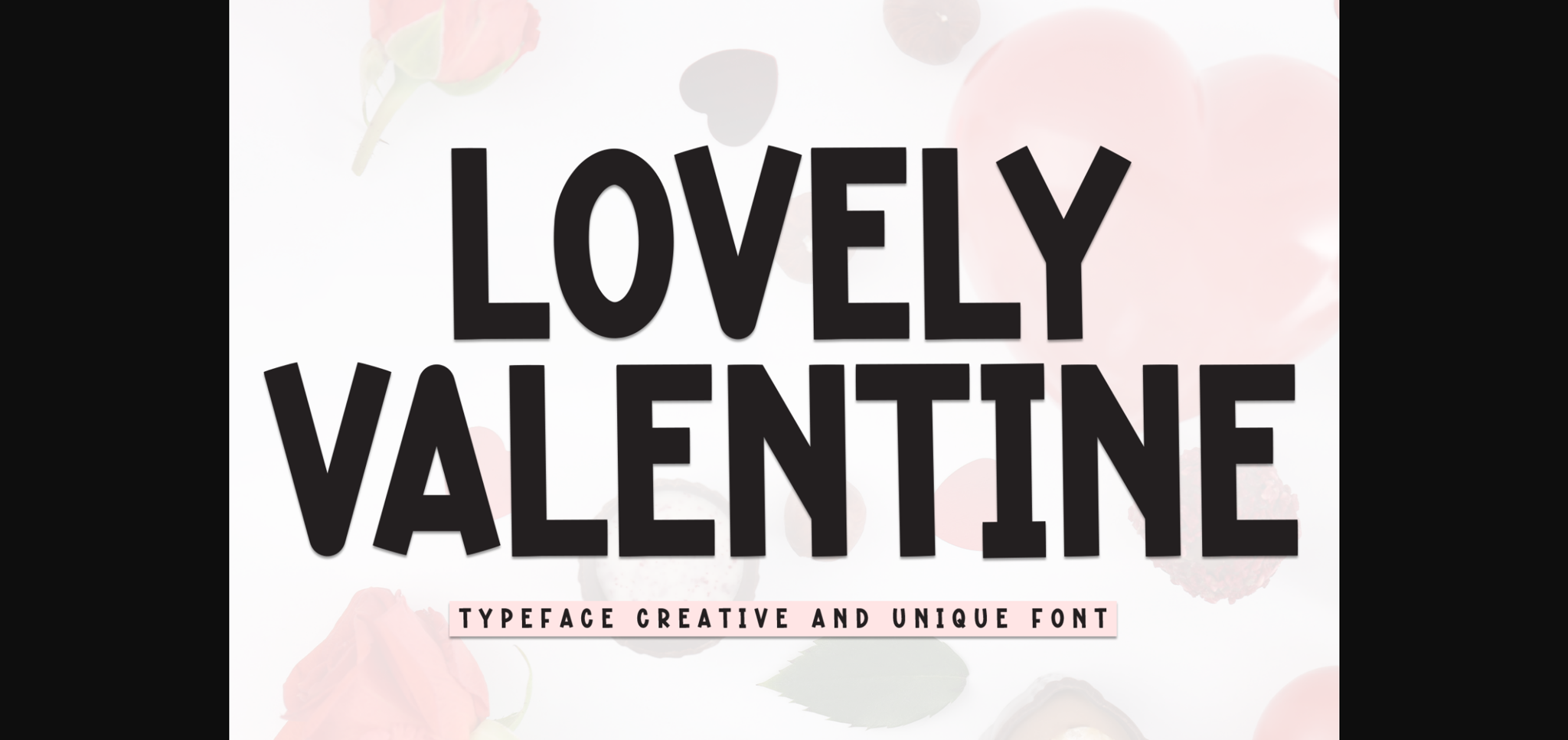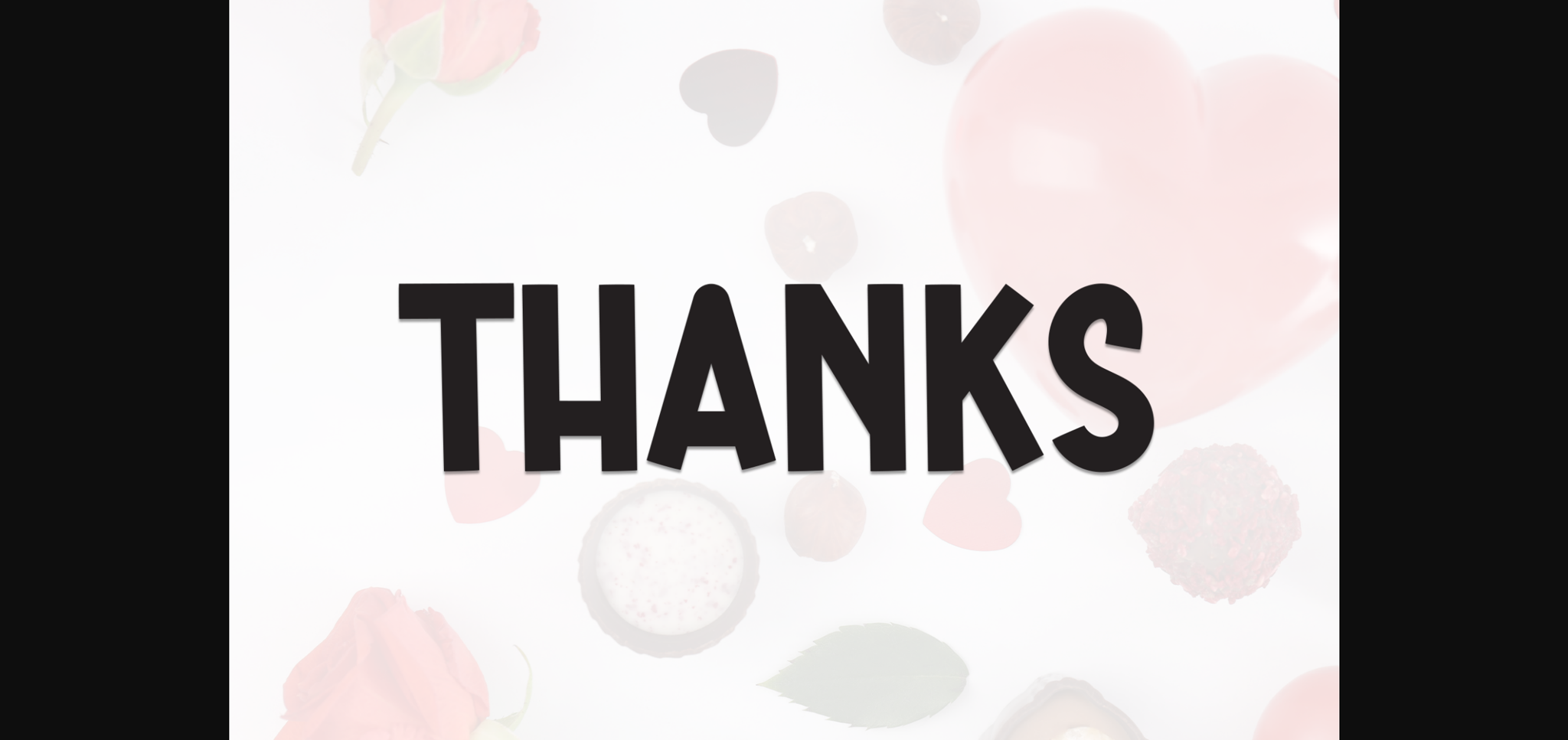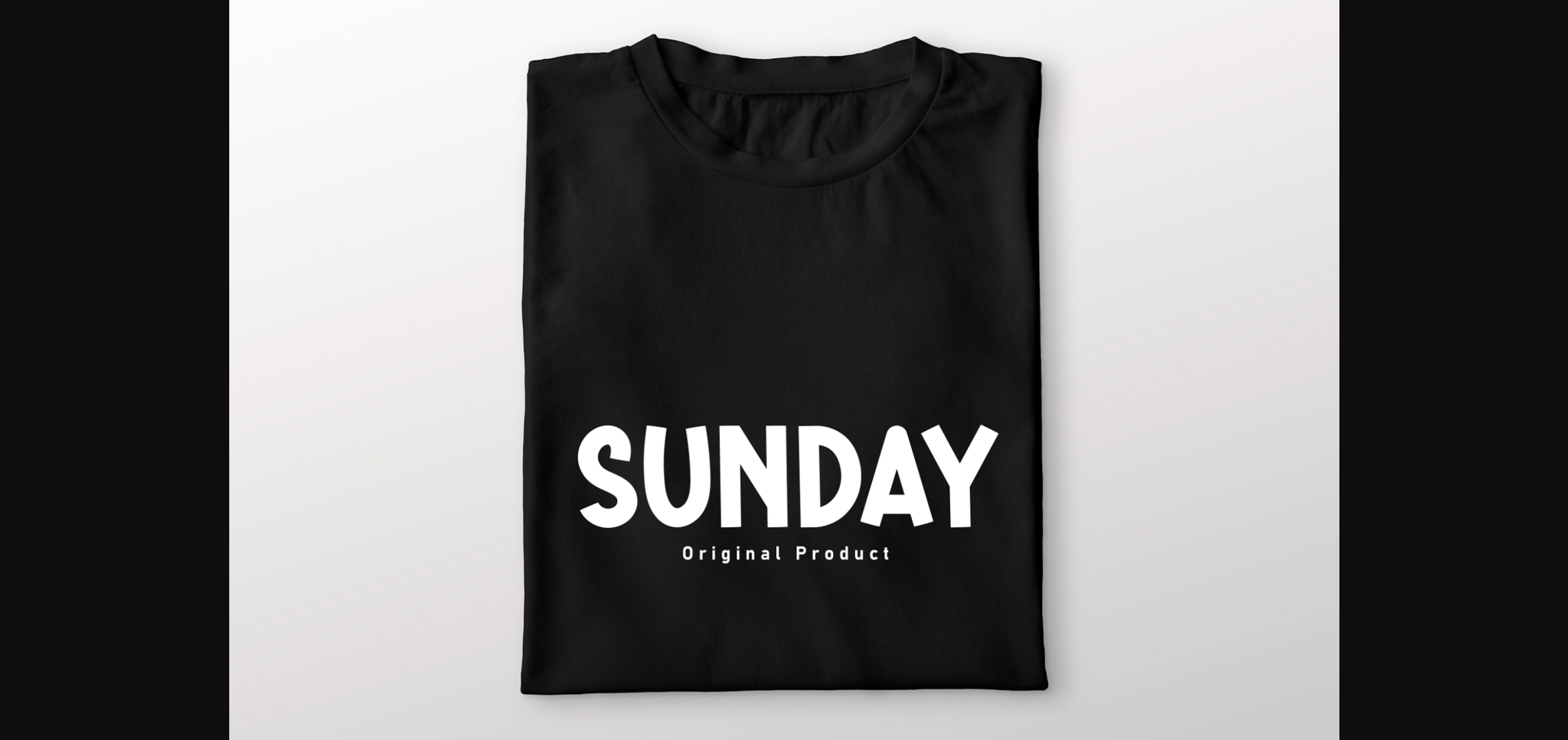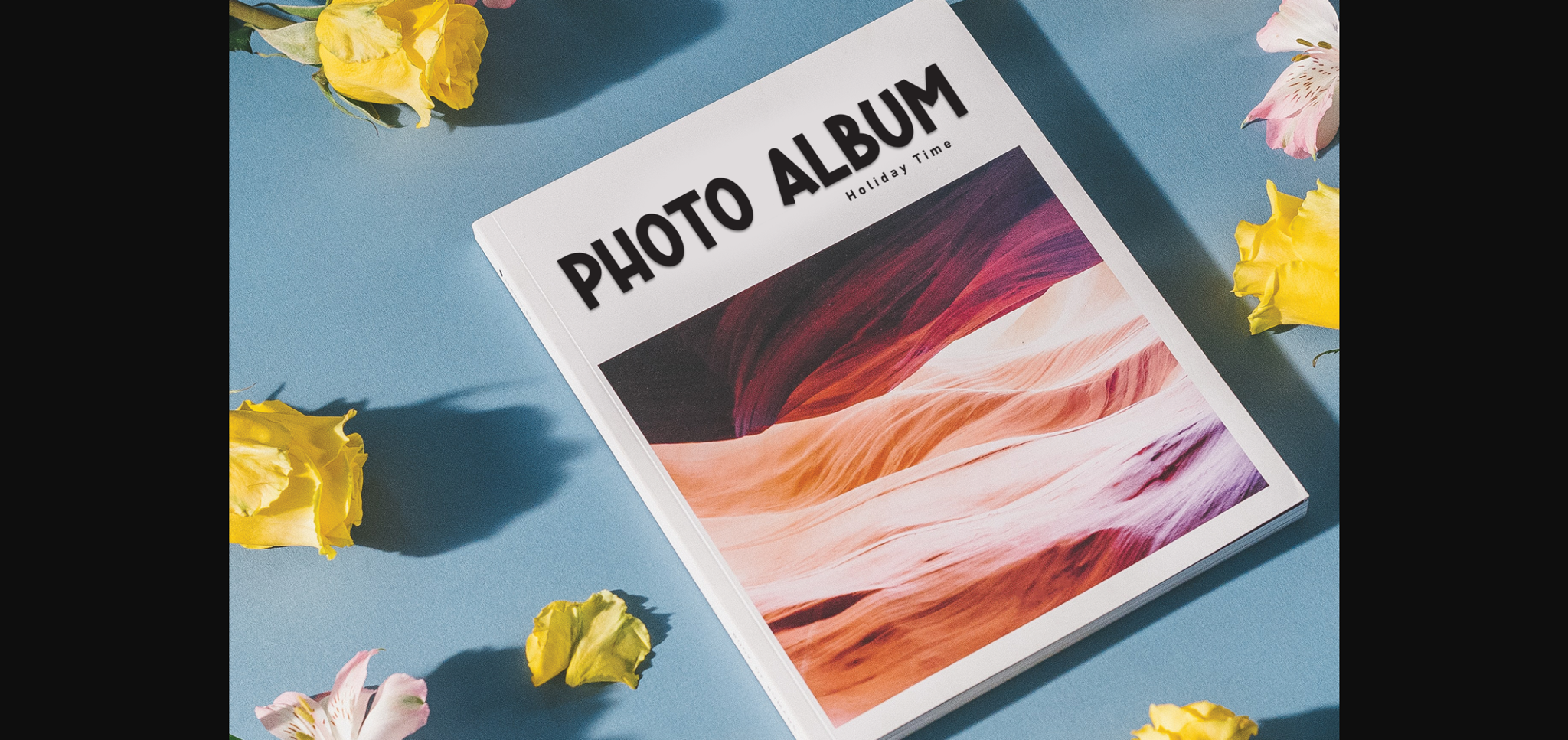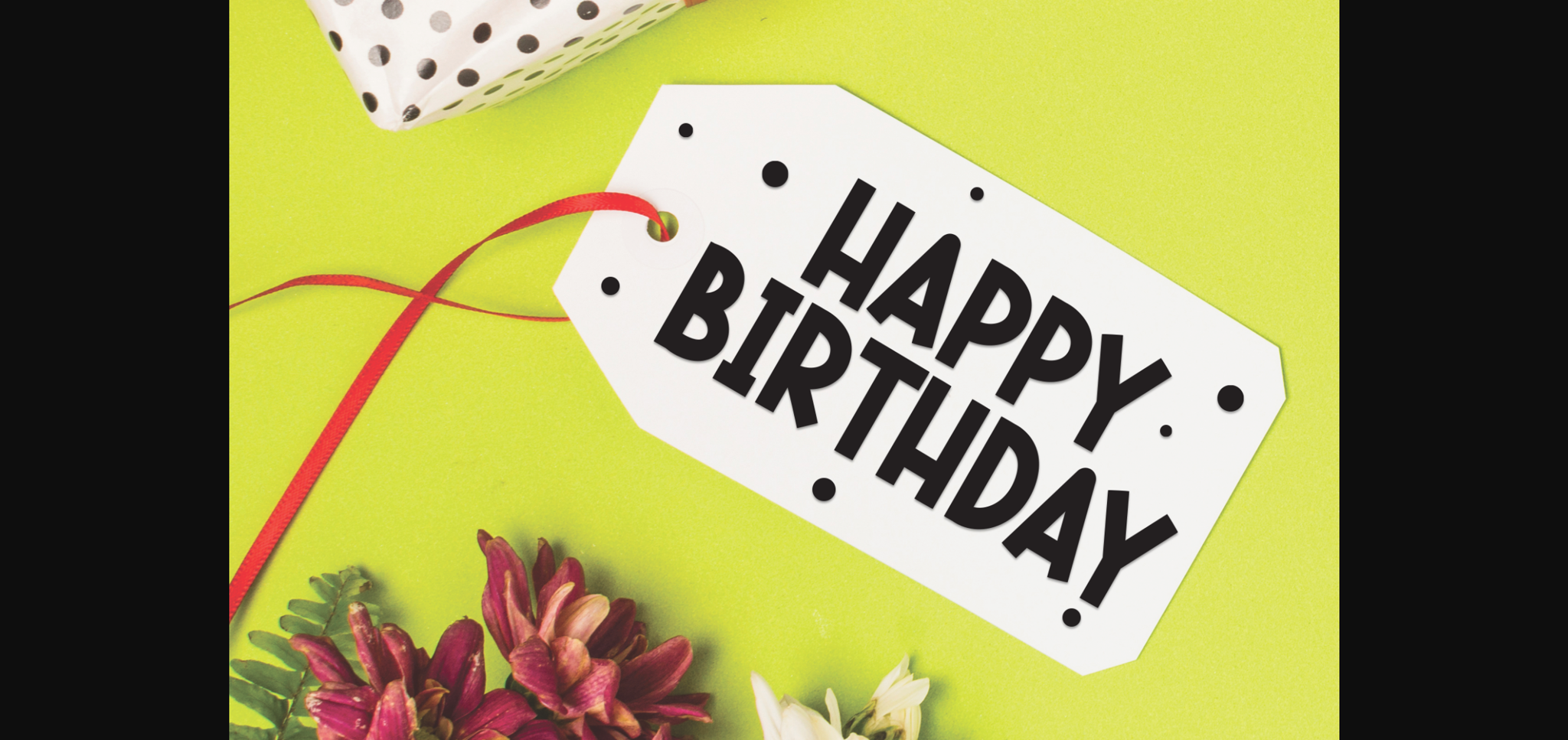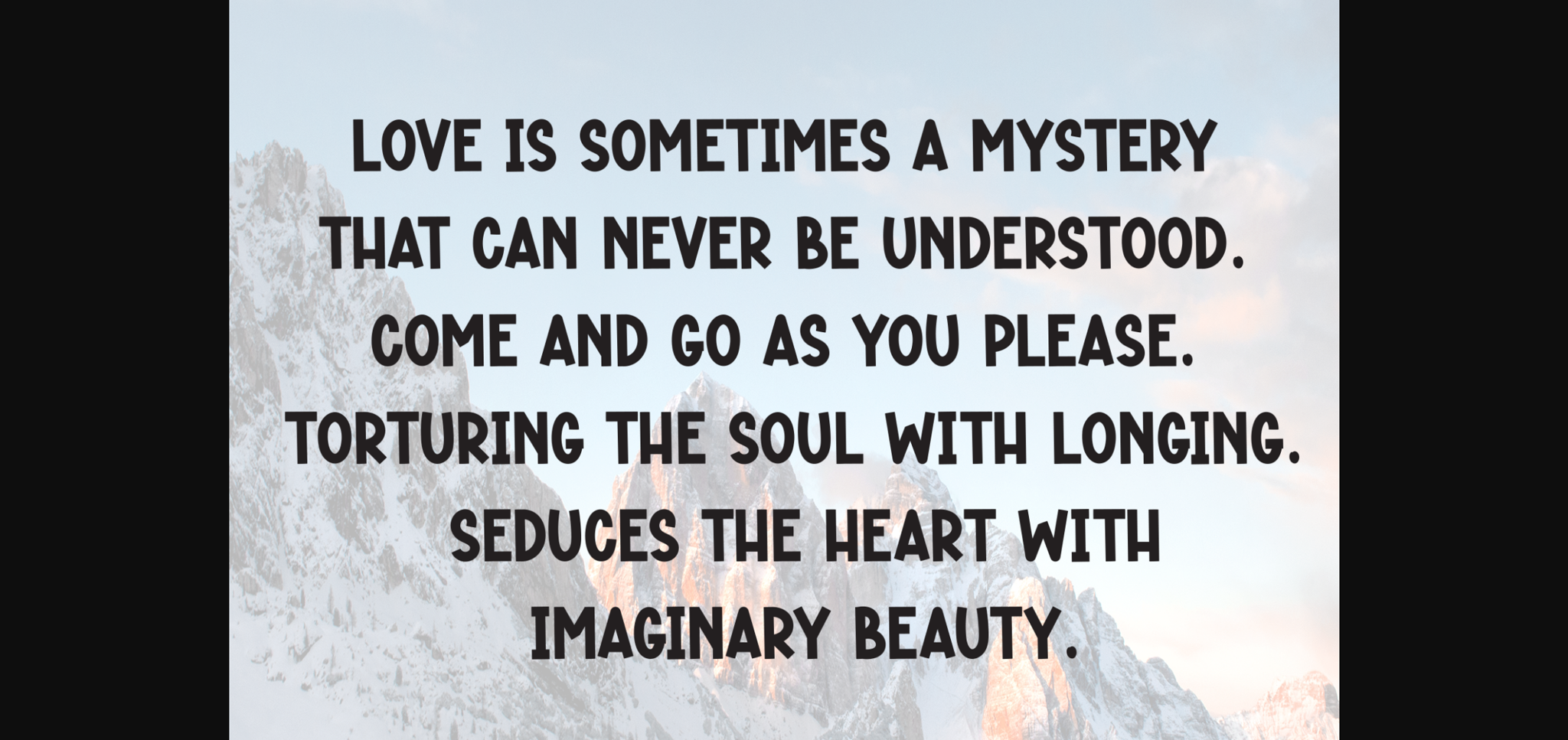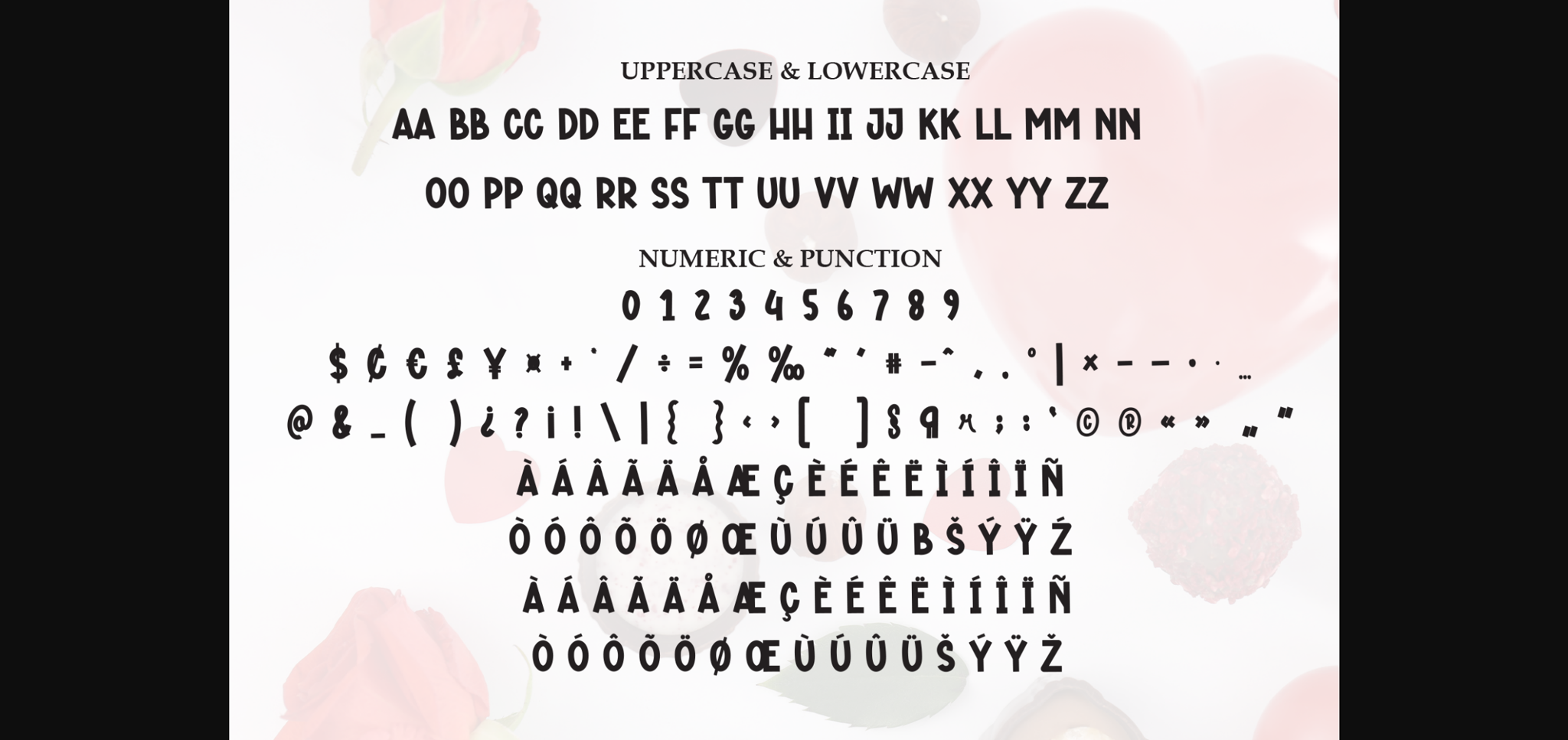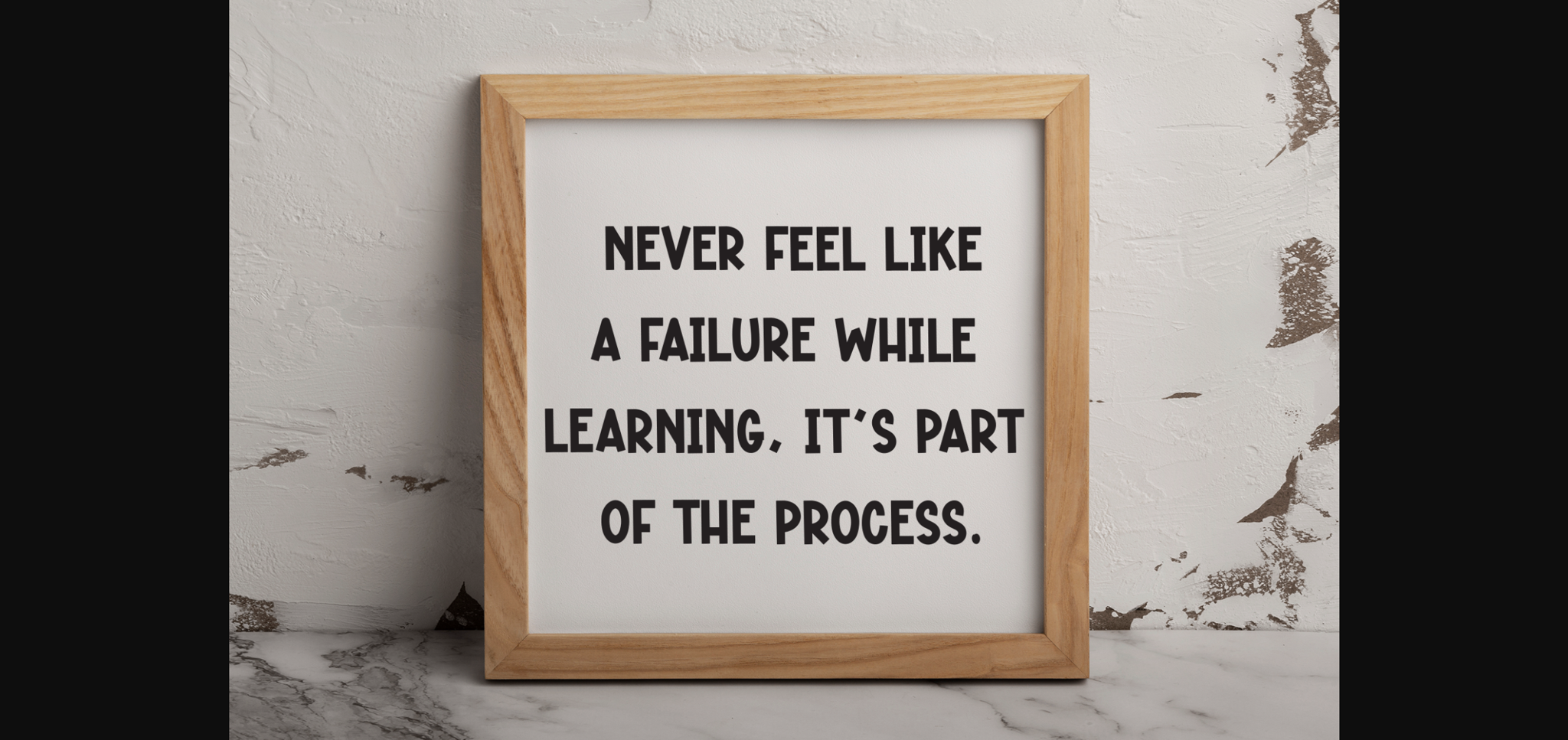
Lovely Valentine Font
About Lovely Valentine Font
Lovely Valentine is a casual sans-serif font that effortlessly blends informality with readability. Crafted with a relaxed charm, each character flows naturally, adding a friendly touch to your projects. Perfect for conveying a laid-back yet approachable vibe, Lovely Valentine infuses your designs with a welcoming appeal.